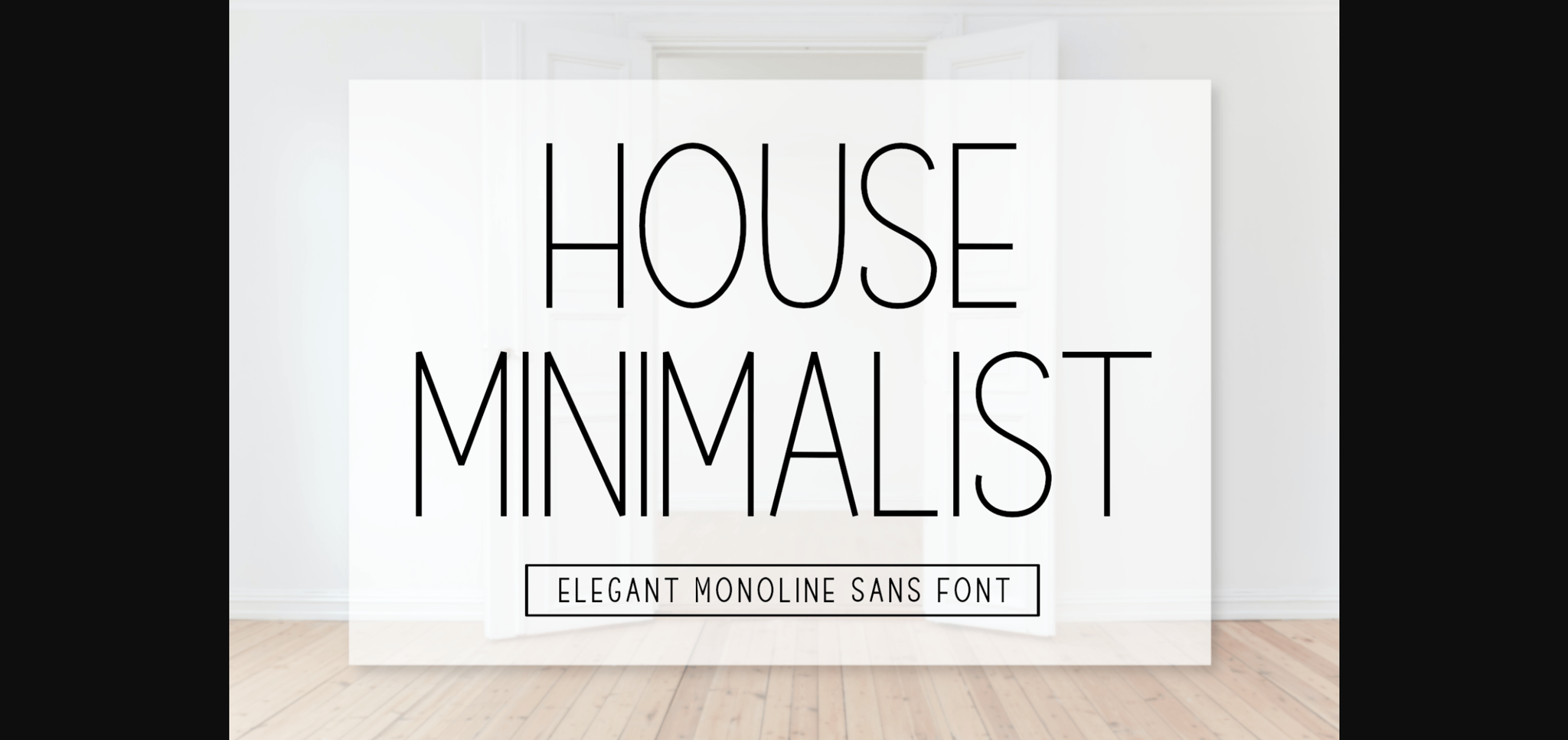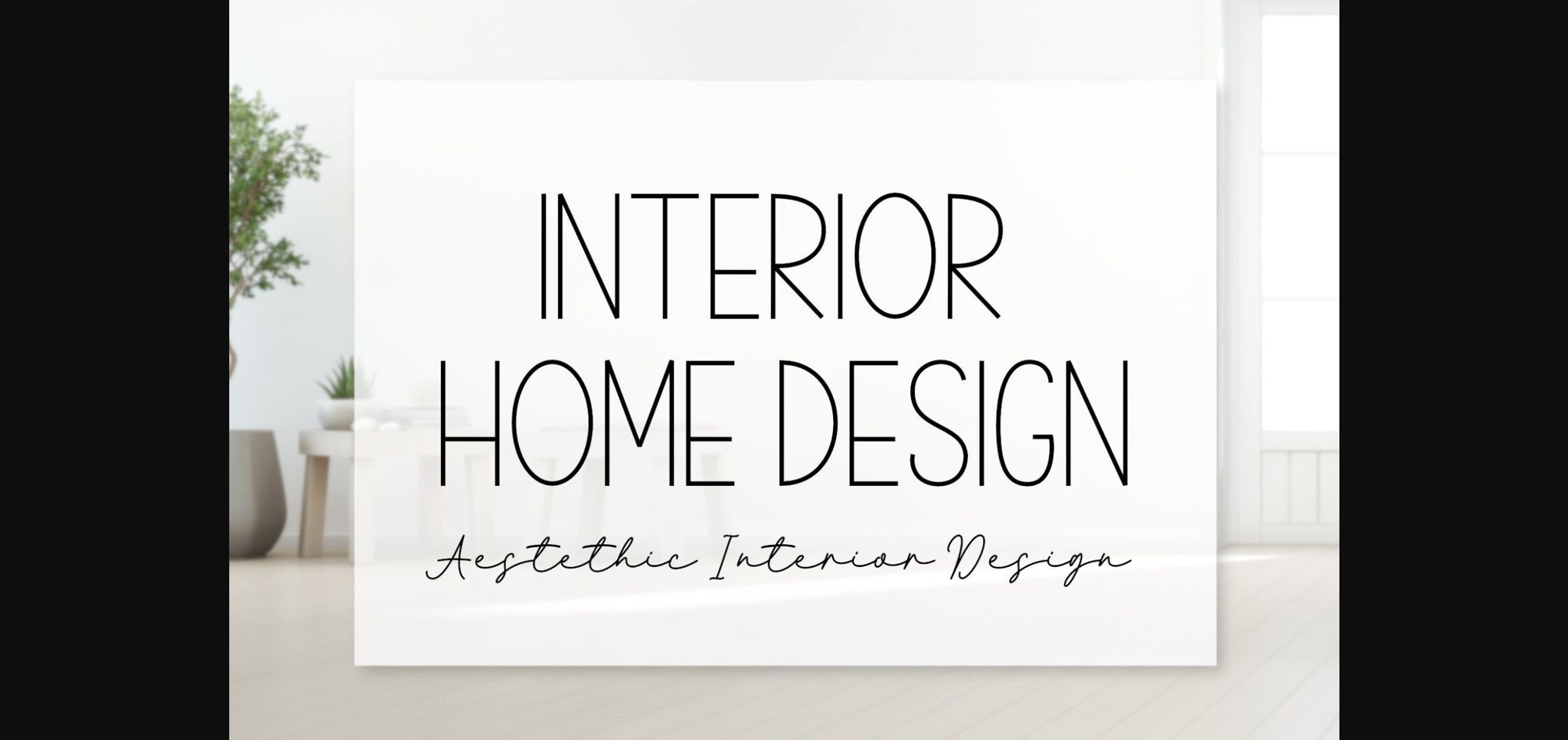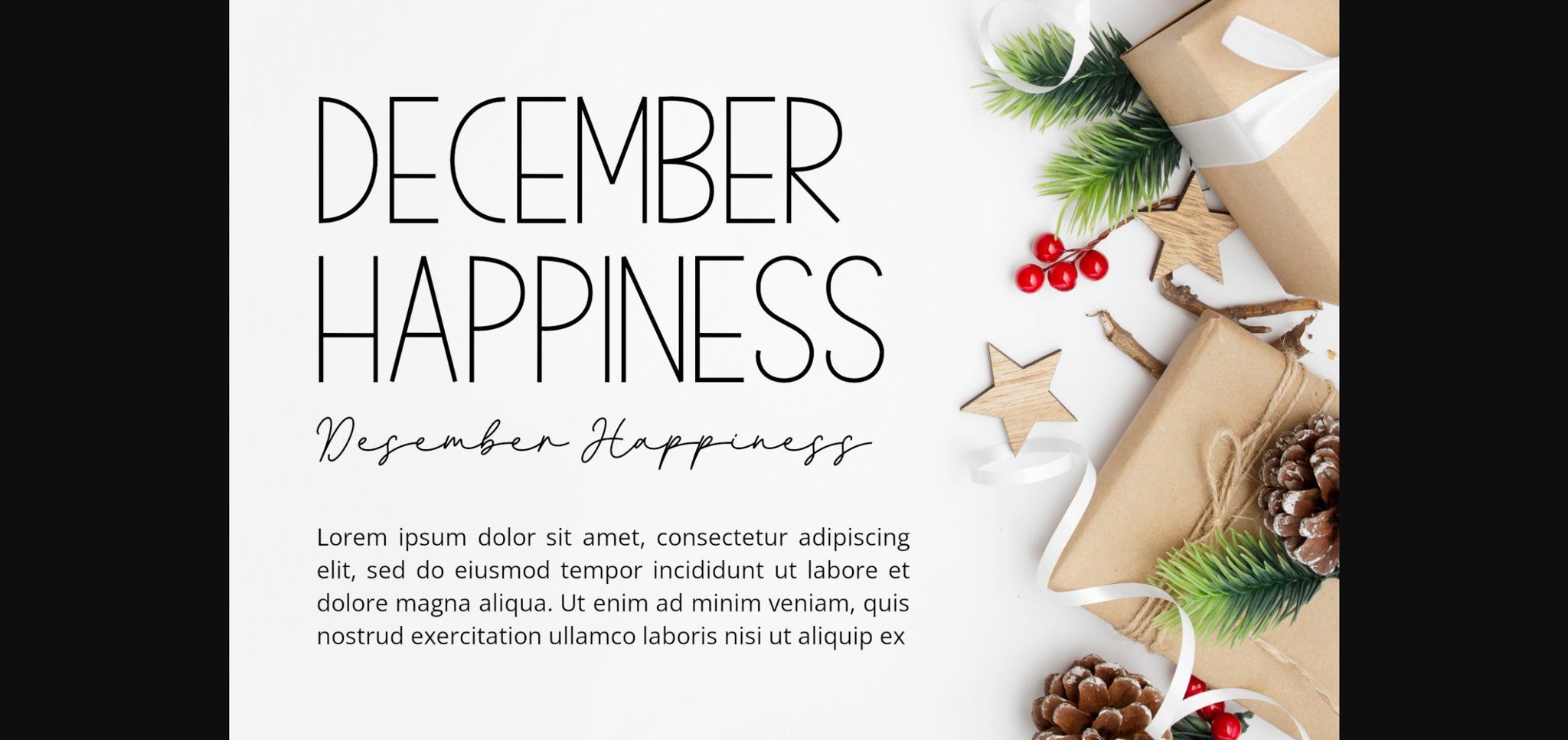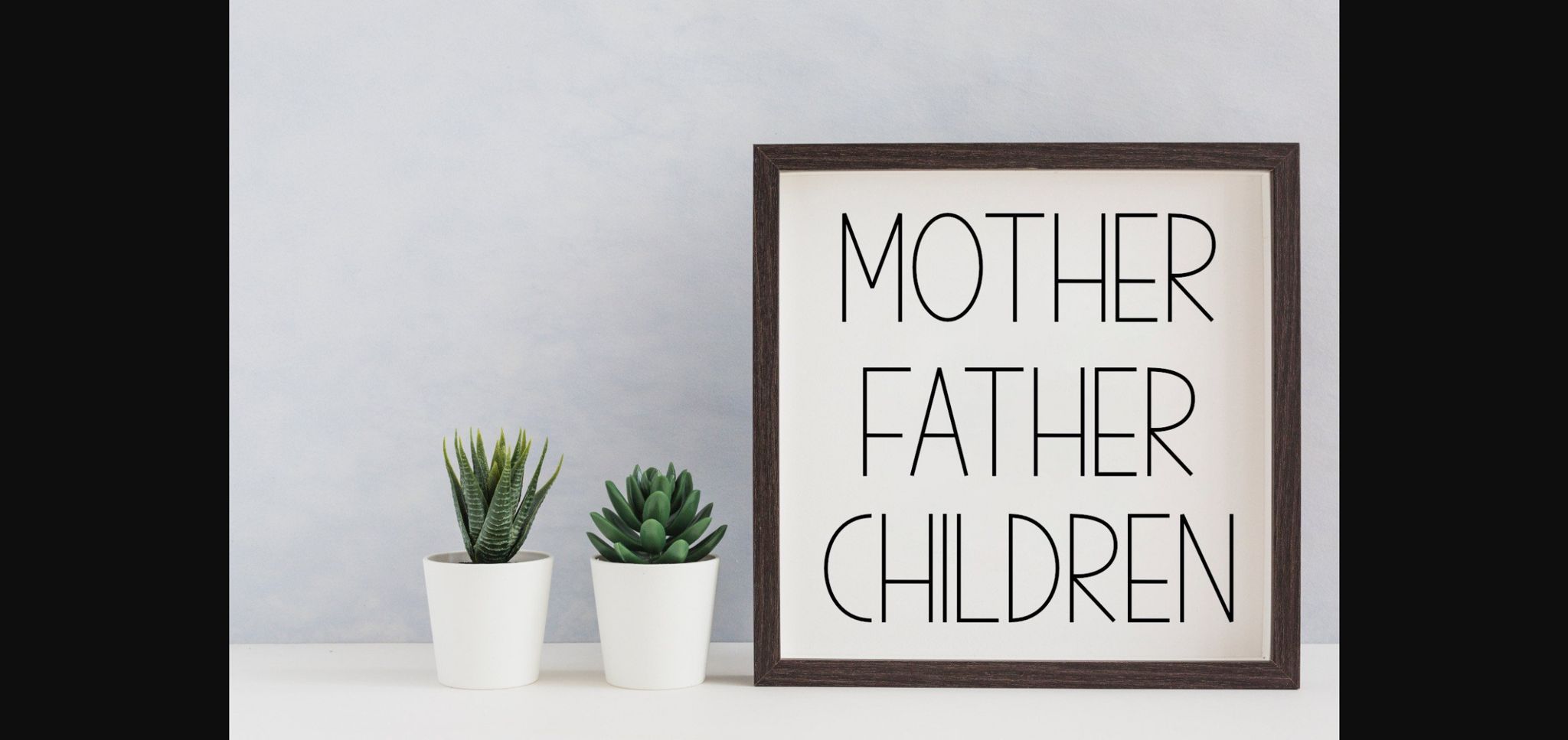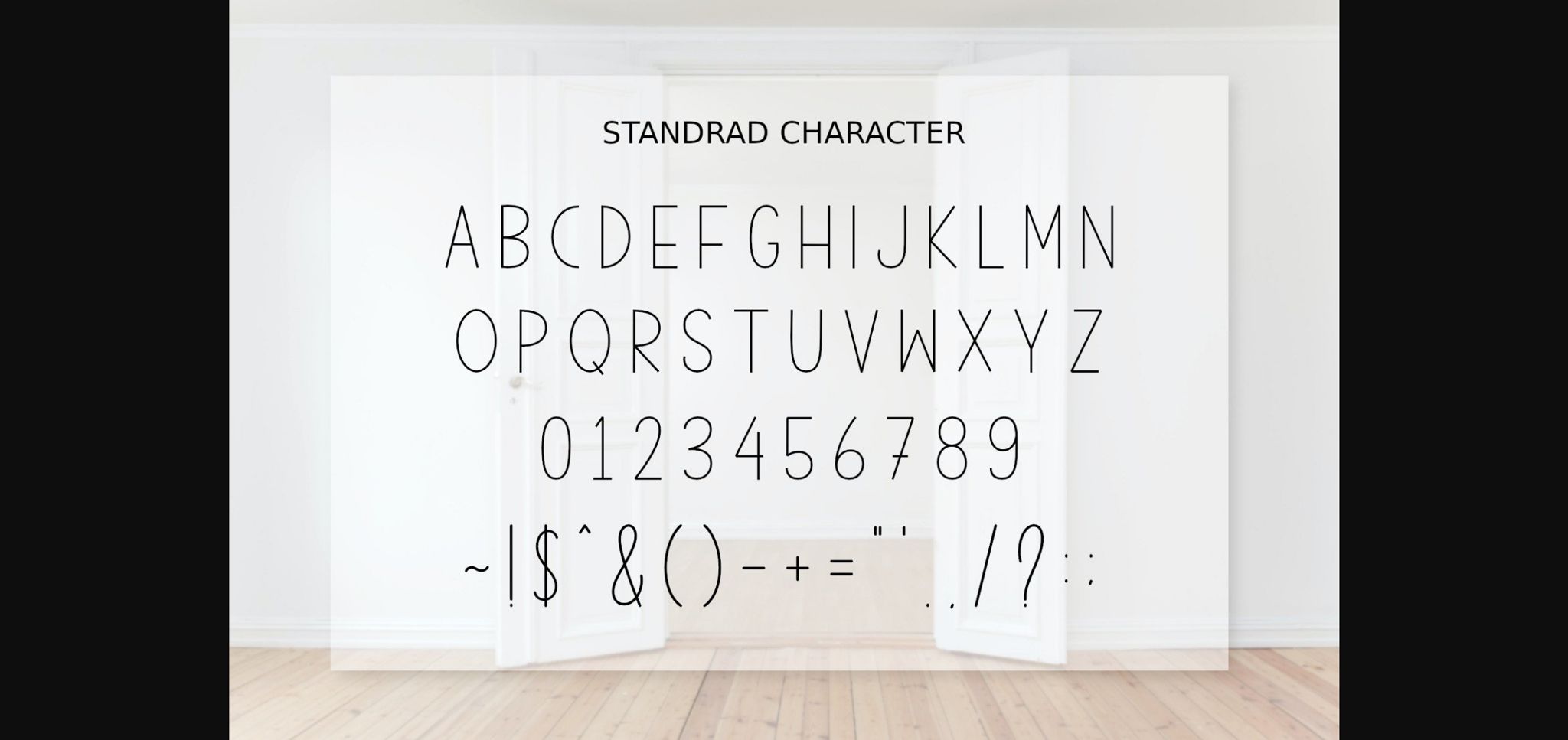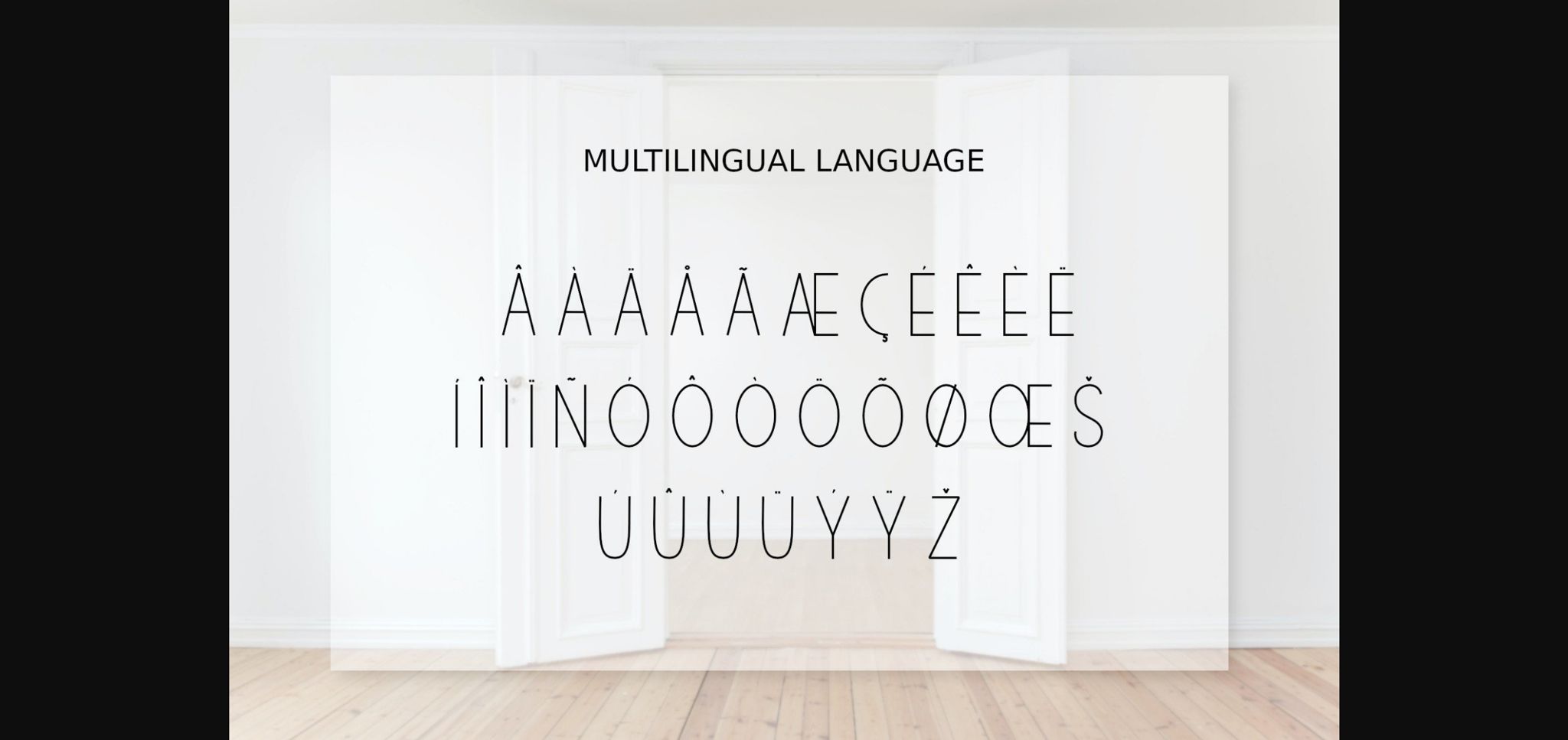
House Minimalist is a simple and elegant handwritten sans serif font. Its casual charm makes it extremely versatile so you can add this typeface to a wide pool of design ideas.